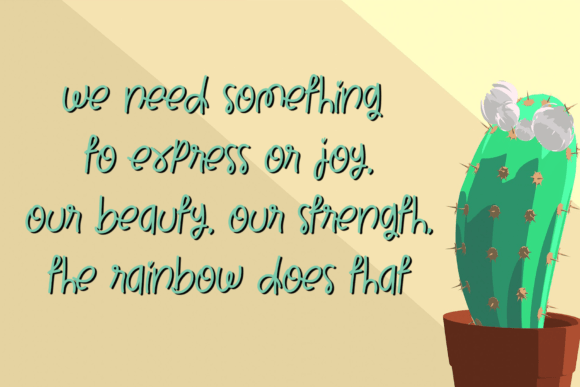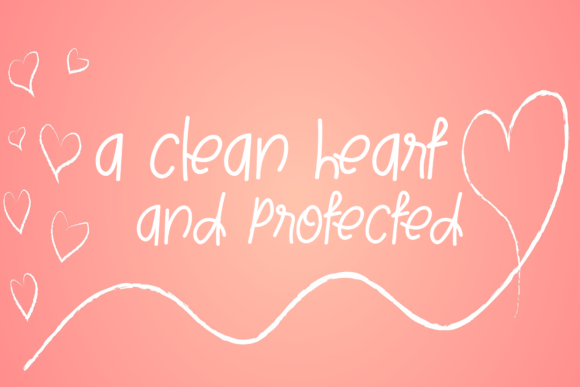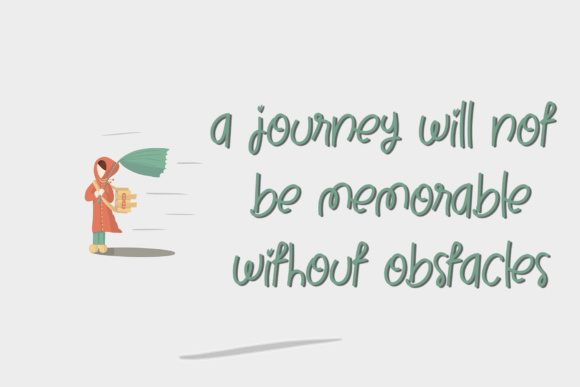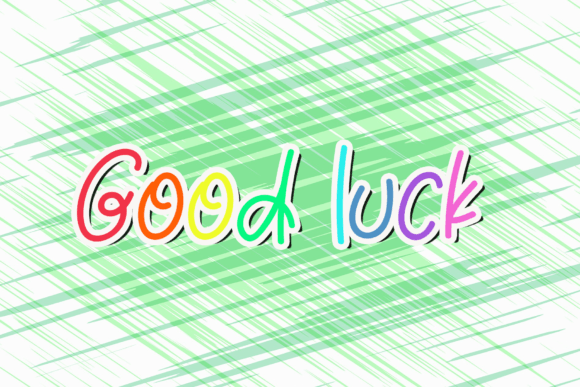
Introducing Chubby Cheeks Font: The Perfect Choice for Whimsical Designs
Are you a designer, crafter, or DIY enthusiast looking for a font that embodies playfulness and authenticity? Look no further than Chubby Cheeks Font! This adorable handwritten font is perfect for adding a touch of whimsy to any children’s activity or school project. In this article, we’ll dive into the world of Chubby Cheeks Font and explore its features, benefits, and uses.
What is Chubby Cheeks Font?
Chubby Cheeks Font is a cute and whimsical handwritten font designed to bring a smile to your face. Its playful and authentic feel makes it an ideal choice for designs that require a personal touch. Whether you’re creating activity sheets, posters, or crafts for kids, Chubby Cheeks Font is the perfect addition to your design toolkit.
Features of Chubby Cheeks Font
So, what makes Chubby Cheeks Font so special? Here are some of its key features:
- Handwritten style: Chubby Cheeks Font has a beautiful, handwritten style that’s perfect for creating personal and engaging designs.
- Playful feel: This font embodies playfulness and fun, making it ideal for designs that require a lighthearted touch.
- Authentic look: Chubby Cheeks Font has an authentic look that’s perfect for creating designs that feel genuine and heartfelt.
- Easy to read: Despite its playful style, Chubby Cheeks Font is easy to read, making it perfect for designs that require a clear and concise message.
Benefits of Using Chubby Cheeks Font
So, why should you choose Chubby Cheeks Font for your designs? Here are some of its benefits:
- Adds a personal touch: Chubby Cheeks Font adds a personal touch to your designs, making them feel more engaging and relatable.
- Perfect for kids’ designs: This font is specifically designed for children’s activities and school projects, making it a great choice for designers and crafters who work with kids.
- Versatile: Chubby Cheeks Font can be used for a wide range of designs, from posters and flyers to crafts and activity sheets.
Uses of Chubby Cheeks Font
So, what can you create with Chubby Cheeks Font? Here are some ideas to get you started:
- Children’s activity sheets: Create engaging activity sheets, such as coloring pages, mazes, and word searches, with Chubby Cheeks Font.
- School projects: Use Chubby Cheeks Font for school projects, such as posters, presentations, and reports.
- Crafts: Add Chubby Cheeks Font to your crafts, such as handmade cards, gift tags, and scrapbook pages.
- Posters and flyers: Use Chubby Cheeks Font for posters and flyers that require a playful and eye-catching design.
Tips for Using Chubby Cheeks Font
Here are some tips for using Chubby Cheeks Font effectively:
- Use it with bright colors: Chubby Cheeks Font looks great with bright, bold colors that match its playful style.
- Experiment with different sizes: Try using Chubby Cheeks Font in different sizes to create visual interest and hierarchy in your designs.
- Pair it with other fonts: Experiment with pairing Chubby Cheeks Font with other fonts to create a unique and interesting design.
In conclusion, Chubby Cheeks Font is a cute and whimsical handwritten font that’s perfect for adding a touch of playfulness and authenticity to your designs. With its easy-to-read style, versatile uses, and benefits, Chubby Cheeks Font is a great choice for designers, crafters, and DIY enthusiasts who work with kids. So why not give it a try and see how it can bring your designs to life?